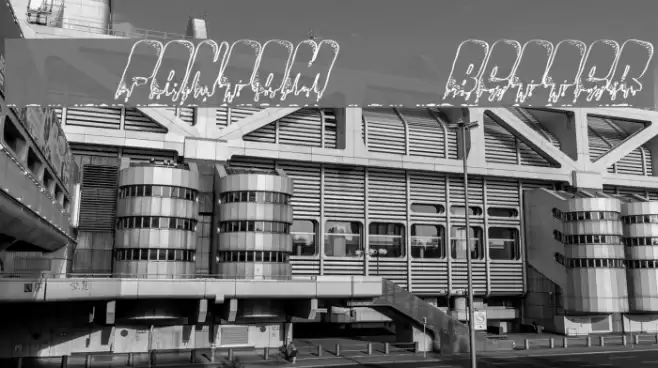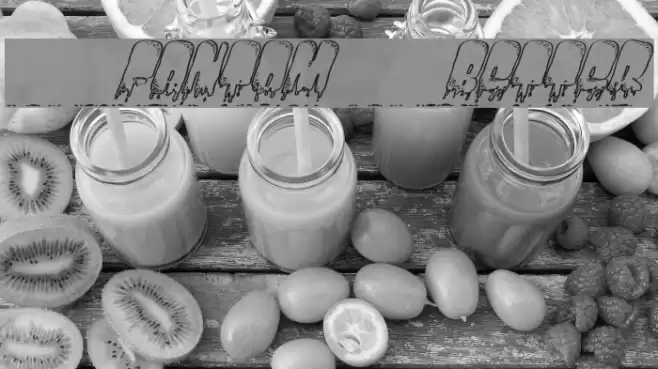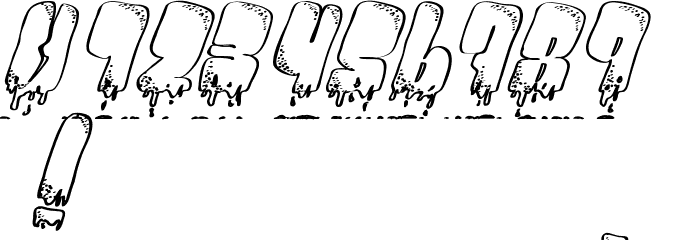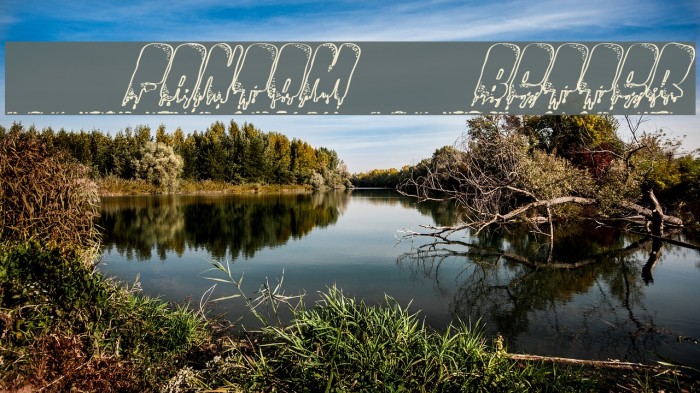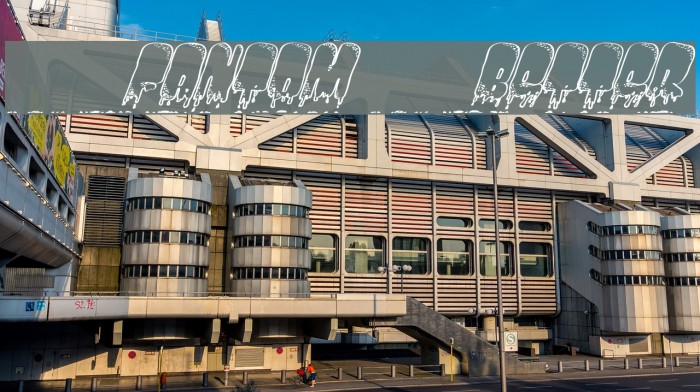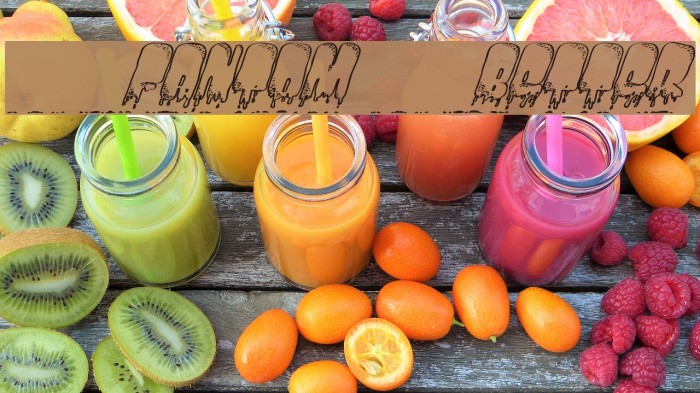
Fantom Better Font
Fantom Better Description
This font features a unique and playful design, characterized by its dripping, melting appearance. The letters are bold and rounded, with a distinct texture that gives the impression of liquid or slime. The uppercase and lowercase letters maintain a consistent style, with exaggerated curves and a sense of movement. The numbers and special characters follow the same theme, adding a cohesive look to the entire set. This font is eye-catching and ideal for projects that require a fun, spooky, or unconventional aesthetic.
A playful, dripping font with a bold, melting appearance from Cartoon fonts.
- Proposed Projects: Ideal for Halloween-themed designs, children's book covers, party invitations, or any project needing a quirky and spooky touch.
- Use Case: Headlines, Posters, Logos